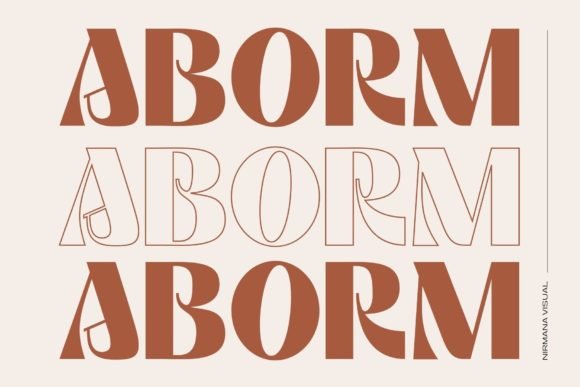
The Perfect Typographic Harmony for Your Next Design Project
Have you ever stared at a blank canvas, trying to come up with the perfect idea for your next design project? You’ve got a vision, but the words just aren’t coming together in a way that feels cohesive and stylish. That’s where the right font can make all the difference.
Enter the Aborm Font, a modern display font designed to bring beautiful typographic harmony to your designs. Whether you’re working on a logo and branding project, crafting a social media post, or creating an eye-catching advertisement, Aborm Font is the perfect tool to help you achieve your creative goals.
As a designer, you know how valuable a great font can be in elevating your work and making it stand out from the crowd. That’s why Aborm Font is a valuable addition to your design toolkit, offering a unique blend of style and versatility that’s sure to impress.
Key Features of Aborm Font
- Size: The font family consists of multiple weights, ranging from Thin (100) to Black (900), providing a wide range of design options.
- Unique Characteristics: The font features a distinctive, modern design with geometric shapes and clean lines, making it ideal for use in branding, advertising, and digital media.
- Language Support: Aborm Font supports a wide range of languages, including Latin, Cyrillic, and Greek alphabets, as well as many non-Latin scripts.
- Font Metrics: The font’s x-height and cap height are optimized for readability, ensuring that text remains clear and easy to read at various sizes and resolutions.
Designer Review: Aborm Font
At first glance, Aborm Font seems like a promising addition to any designer’s toolkit. Here’s what works well:
- ✨ Unique style: Aborm Font boasts an intriguing blend of modern and vintage elements, making it perfect for projects that require a touch of elegance.
- ✨ High customization options: With its robust feature set, Aborm Font allows designers to fine-tune the typography to suit their specific needs.
- ✨ Wide language support: This font supports a wide range of languages, ensuring that it’s a versatile choice for designers working on multilingual projects.
- ⚠️ Limited font pairing options: While Aborm Font looks great on its own, pairing it with other fonts can be challenging due to its distinctive style.
- ⚠️ Some readability issues: In certain contexts, the font’s intricate details can make it harder to read, particularly at smaller font sizes.
Overall, Aborm Font is a solid choice for designers looking to add a unique touch to their projects. While it may have some limitations, its customization options and elegant style make it a worthwhile addition to any designer’s toolkit.
The Aborm Font is ideal for:
- Creating modern and sleek designs.
- Adding a touch of elegance to headings and titles.
- Designing websites, social media graphics, and marketing materials.
Alternatives to Aborm Font
Montserrat is a modern sans-serif font designed for digital use. It’s a great alternative to Aborm Font for designers who want a clean and minimalist look. Montserrat is highly legible and works well for both body text and headings. Compared to Aborm Font, Montserrat has a more geometric feel and is more suitable for digital applications.
Ostrich Sans is a sans-serif font with a unique, friendly feel. It’s a great alternative to Aborm Font for designers who want a more approachable and humanistic look. Ostrich Sans is highly customizable and works well for both body text and headings. Compared to Aborm Font, Ostrich Sans has a more rounded feel and is more suitable for branding and packaging.
The recommended font size for the Aborm Font family is between 12-18 points, with a line height of at least 1.5 times the font size. This will ensure optimal readability and make the text easy to read on a variety of devices and screen sizes.